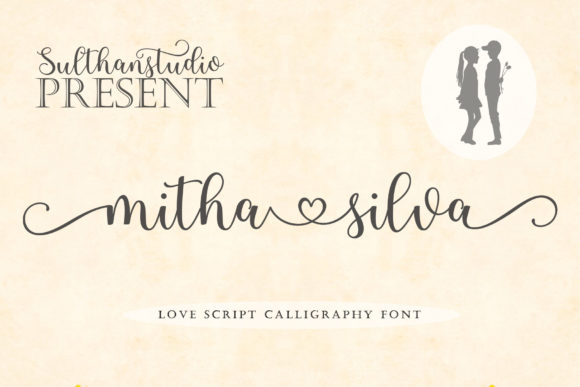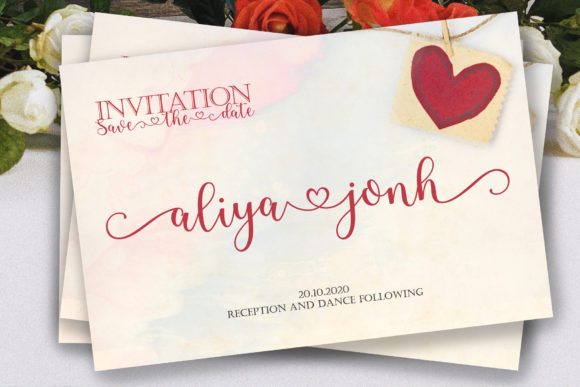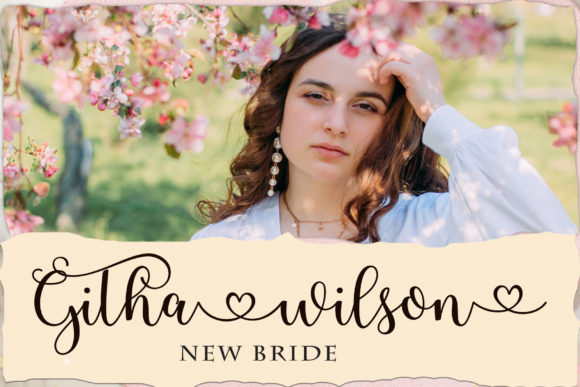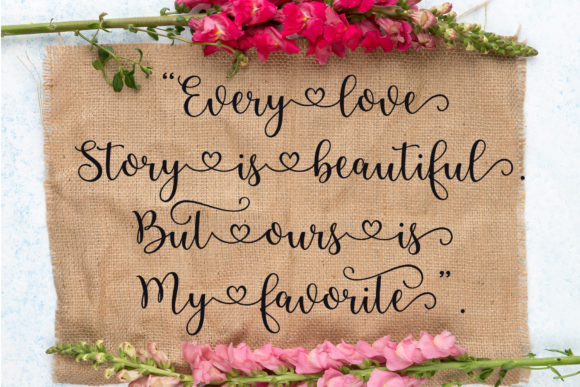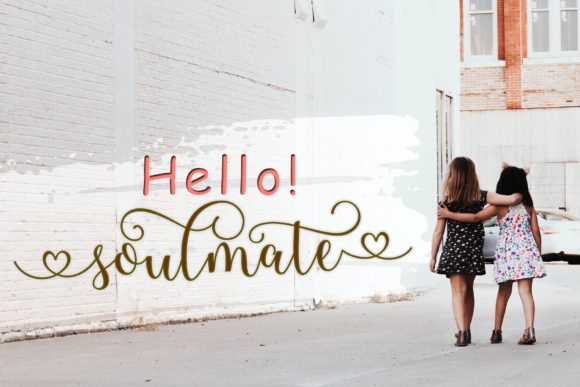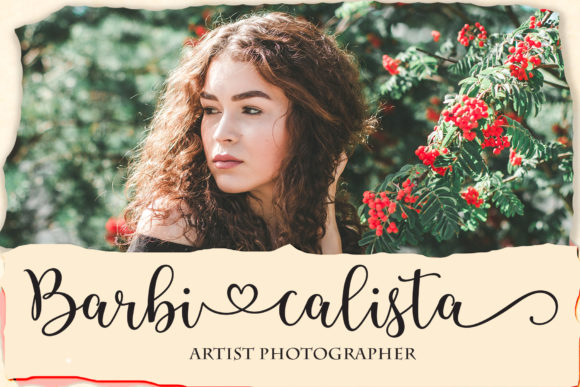
Mitha Silva Font
About Mitha Silva Font
Mitha Silva feels equally charming and elegant. Whether you’re looking for fonts for Instagram or calligraphy scripts for DIY projects, this font will turn any creative idea into a true piece of art!